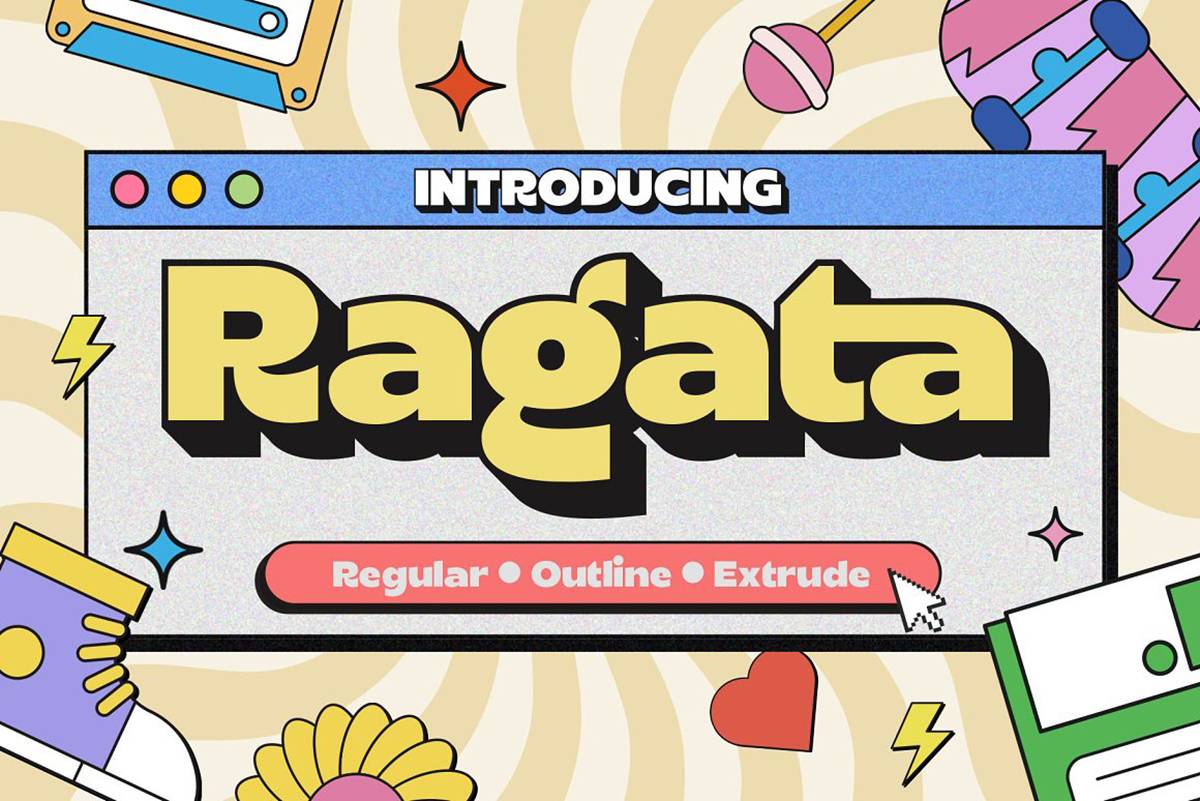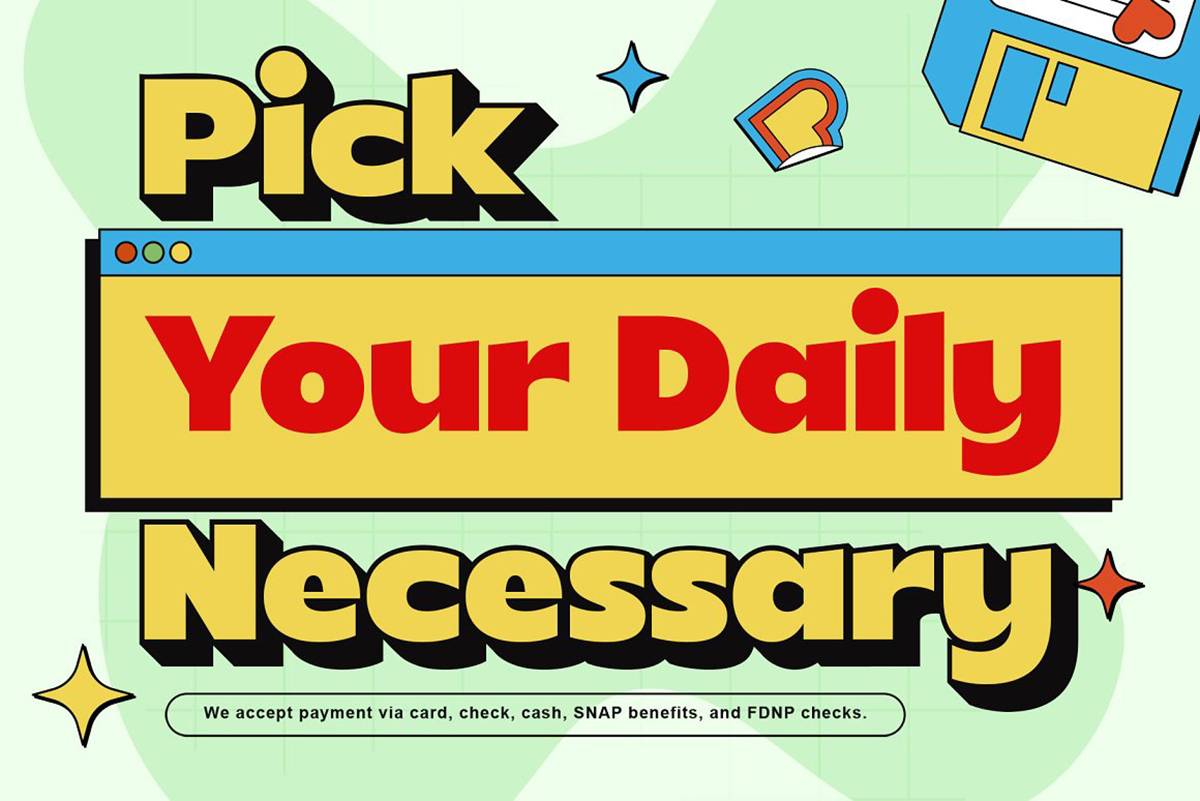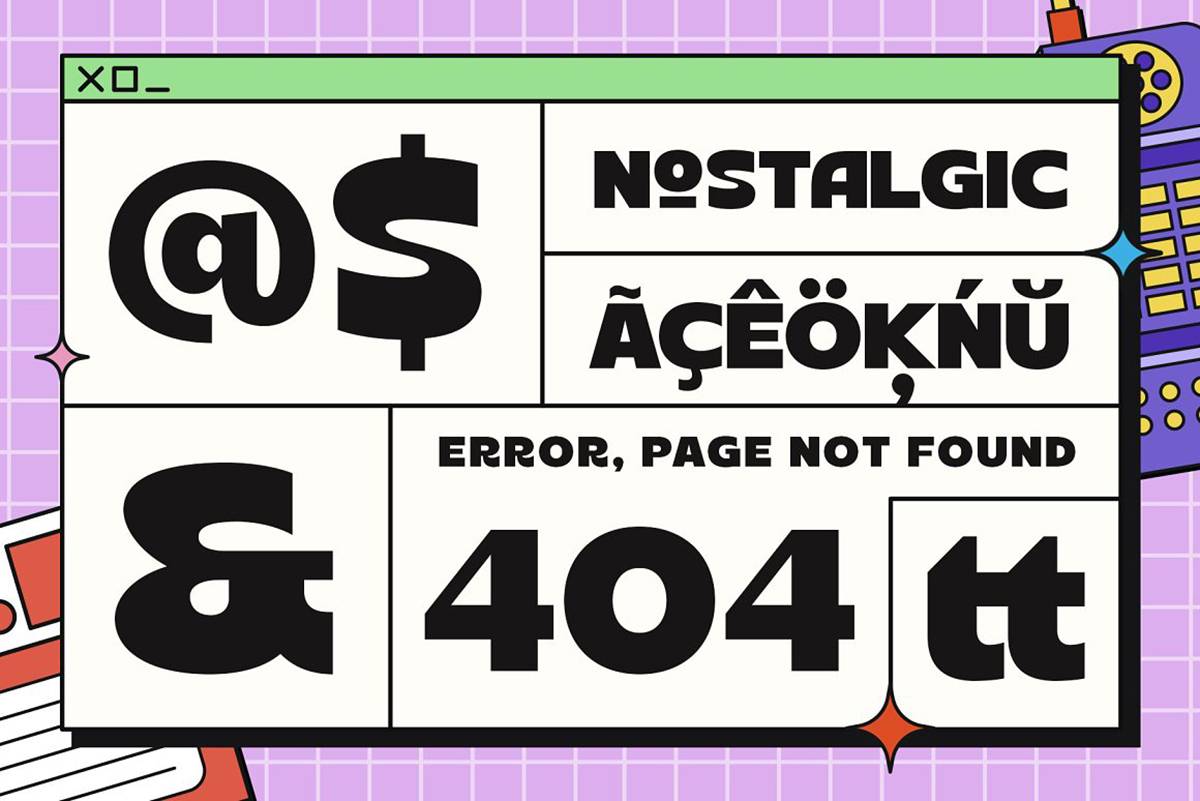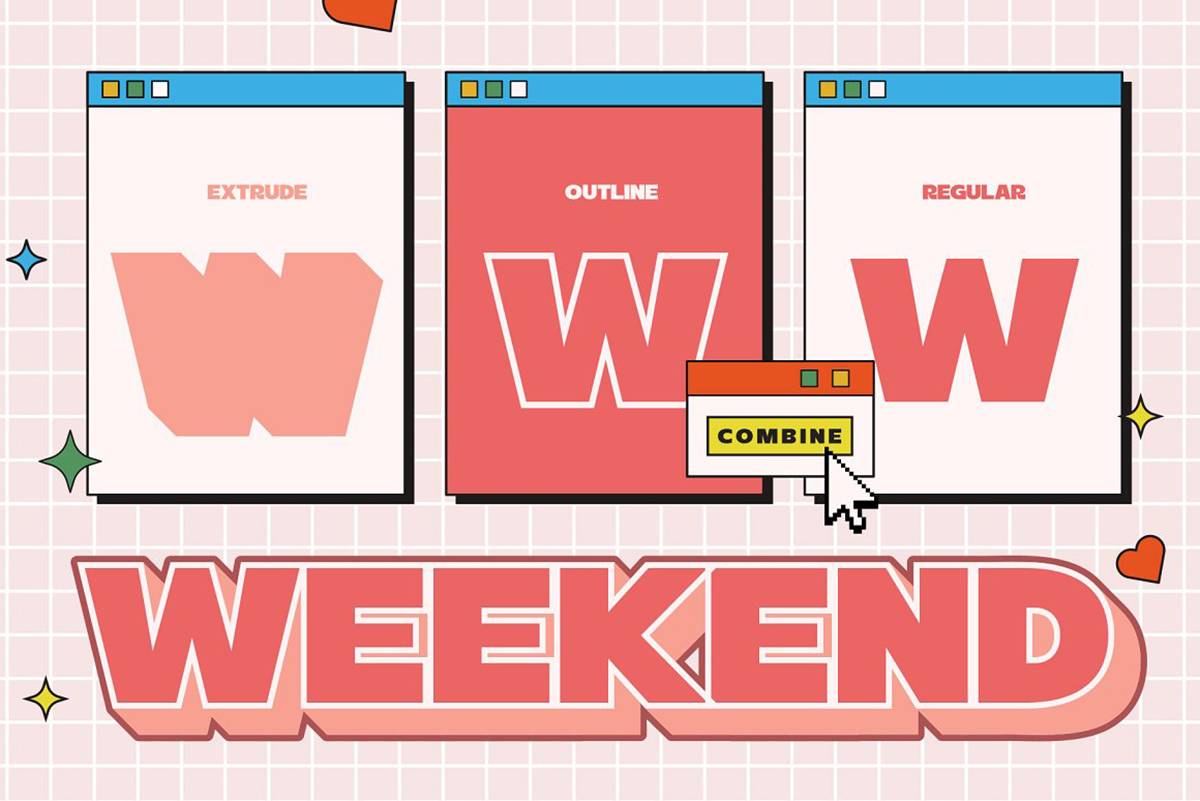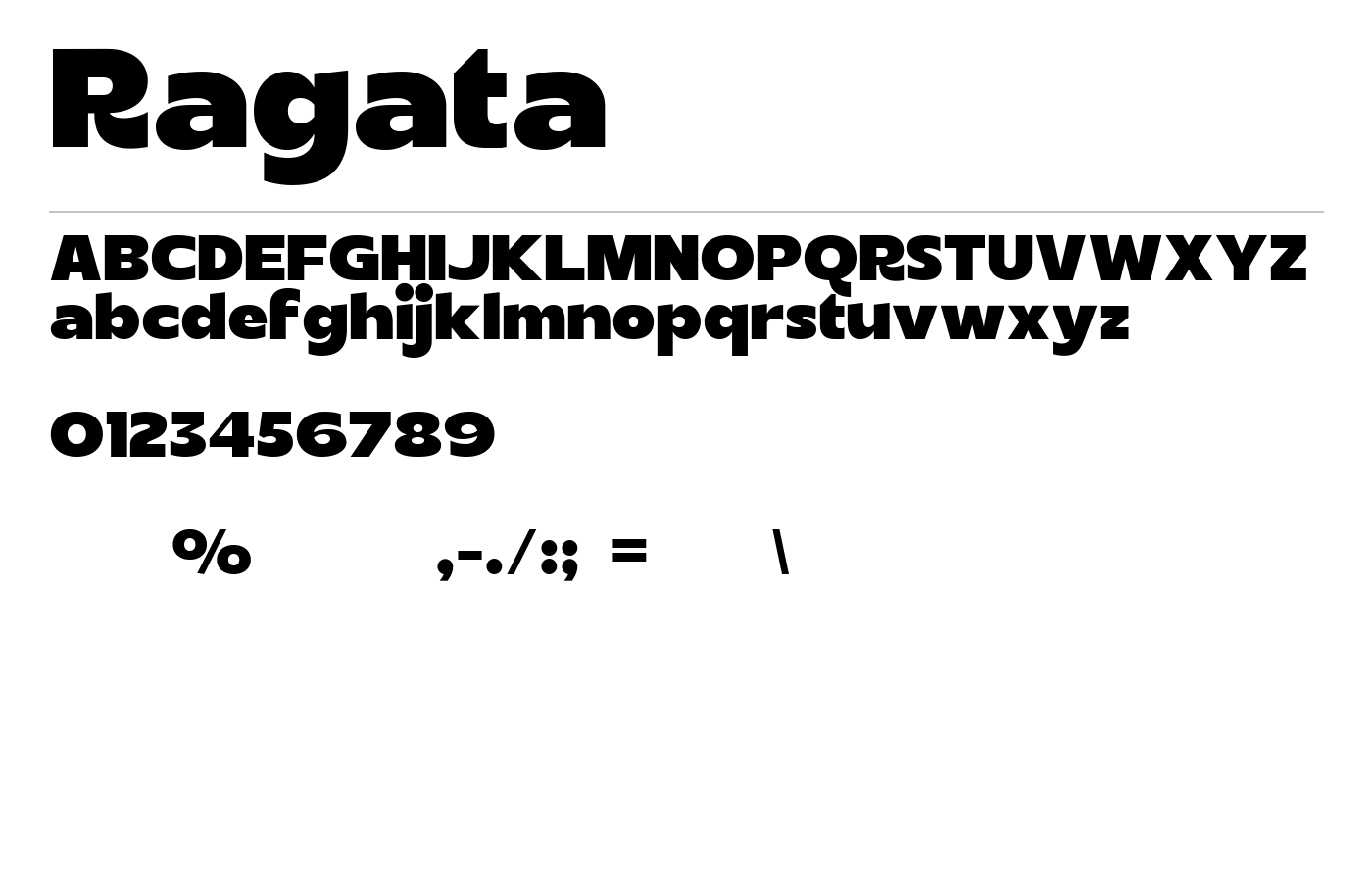
Ragata is a bold, geometric sans serif font with a strong, modern presence and a wide, sturdy build. Its heavy weight and clean, rounded letterforms make it ideal for impactful headlines, branding, and packaging where clarity and confidence are key. This font’s solid construction and friendly curves convey a contemporary, approachable feel perfect for creative and dynamic design projects.
Ragata Font
About Ragata Font
| Font family | Ragata Font |